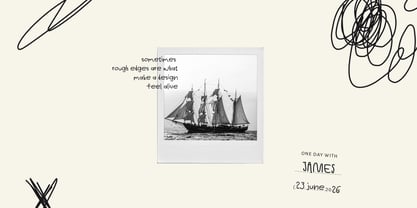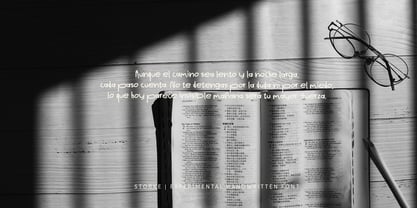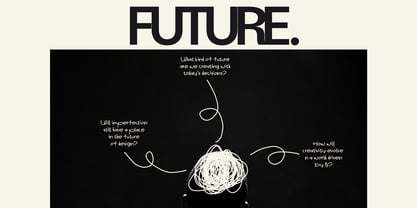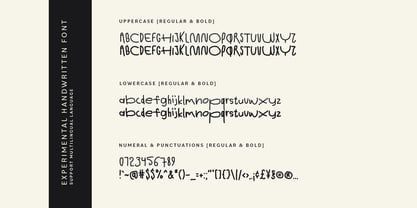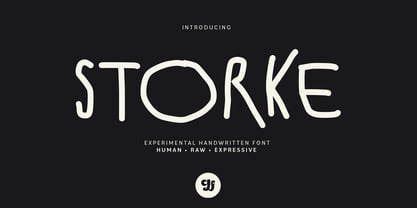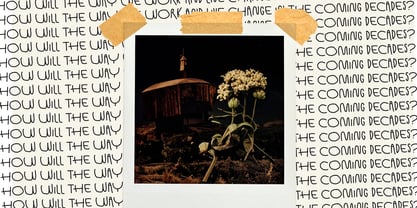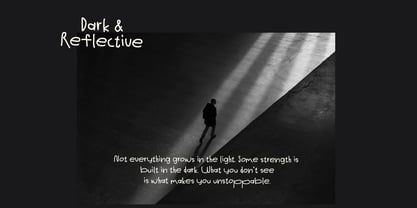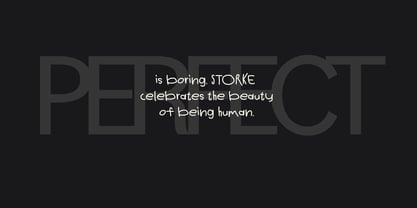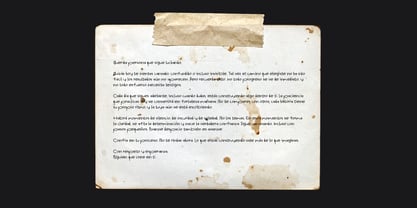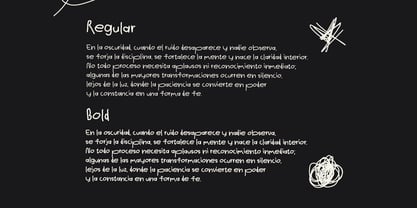
Storke
par Graphicfresh
La famille de polices Storke a été conçue par Muhammad Husni Haikal et publiée par Graphicfresh. Storke contient 2 styles et options de package familial. En savoir plus sur cette famille
Storke is an experimental handwriting font built from raw strokes and natural hand movement. It embraces imperfection, giving your designs a bold, expressive, and human feel. With its organic lines and spontaneous character, STORKE is ideal for designers who want to break away from clean, polished typography and add personality to their work. This font works great for branding, posters, social media graphics, quotes, album covers, packaging, and motion design. Whether you’re creating something artistic, edgy, or modern, STORKE helps your message feel more alive and authentic.
Concepteurs: Muhammad Husni Haikal
Fonderie: Graphicfresh